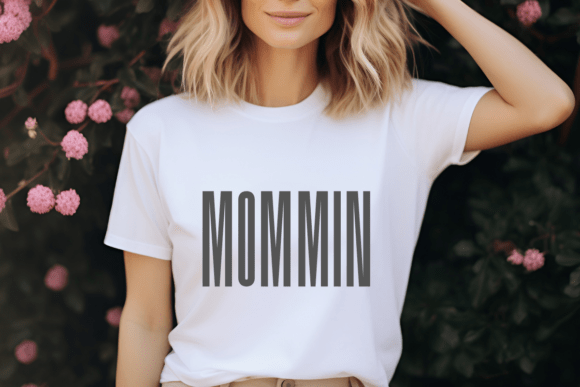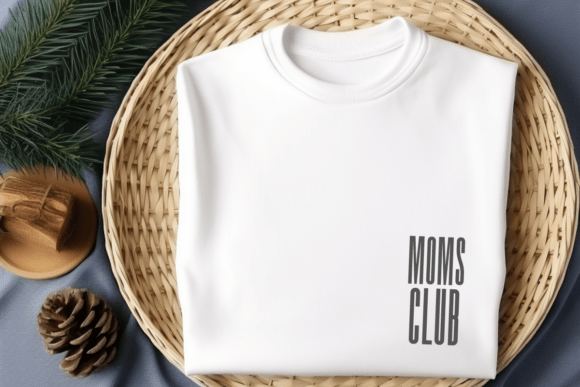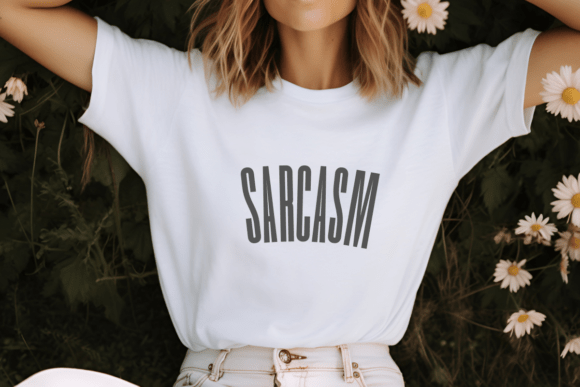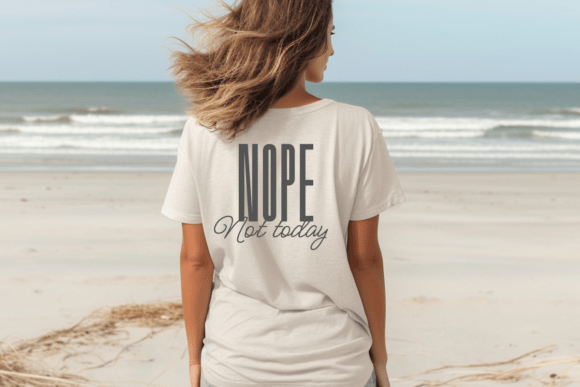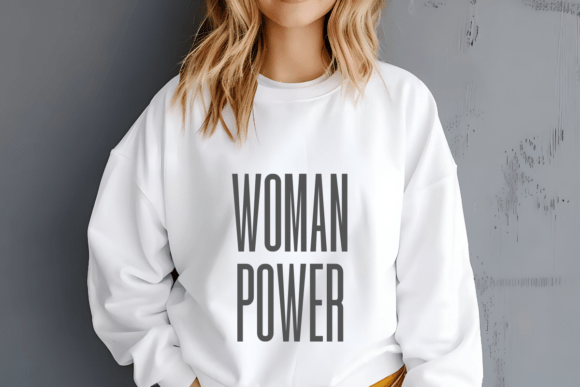
Introducing Comming Font: The Ultimate Ultra-Condensed Sans Serif for High-Impact Designs
In the world of design, fonts play a crucial role in conveying messages, evoking emotions, and creating lasting impressions. For designers and crafters seeking a bold and modern aesthetic, Comming Font is an exceptional choice. This powerful ultra-condensed sans serif font is engineered to deliver maximum visual impact with a clean and modern edge, making it perfect for high-pressure design projects.
What Makes Comming Font Stand Out?
Comming Font is characterized by its exceptionally tall and narrow letterforms, which provide an unparalleled level of visual sophistication. Its sleek, vertical emphasis makes it an ideal choice for designs where space is premium, but visibility is key. Whether you’re working on cinematic film titles, bold branding, sports logos, or modern packaging, Comming Font is the perfect solution.
Ideal Applications for Comming Font
Comming Font’s versatility and professional aesthetic make it suitable for a wide range of applications, including:
- Cinematic Film Titles: Create bold and captivating titles that grab the audience’s attention with Comming Font’s ultra-condensed letterforms.
- Bold Branding: Establish a strong brand identity with Comming Font’s modern and sleek aesthetic.
- Sports Logos: Design energetic and dynamic logos that convey a sense of movement and competition.
- Modern Packaging: Elevate your packaging designs with Comming Font’s clean and professional look.
- Print On Demand Products: Create eye-catching designs for t-shirts, posters, and banners that make a lasting impression.
Perfect for Minimalist Editorial Layouts and High-Energy Marketing Materials
Comming Font’s versatility extends to minimalist editorial layouts and high-energy marketing materials. Its clean and modern aesthetic makes it an excellent choice for:
- Editorial Layouts: Create sophisticated and elegant layouts that showcase your content in a visually appealing way.
- Marketing Materials: Design high-energy marketing materials that grab attention and convey your message with impact.
Why Choose Comming Font?
By choosing Comming Font, you can:
- Elevate Your Designs: Add a touch of sophistication and modernity to your designs.
- Enhance Your Brand: Establish a strong brand identity with Comming Font’s bold and professional aesthetic.
In conclusion, Comming Font is an exceptional ultra-condensed sans serif font that offers a clean and modern edge, making it perfect for high-pressure design projects. Its versatility, professional aesthetic, and seamless integration with design software make it an ideal choice for designers and crafters seeking to create high-impact designs.